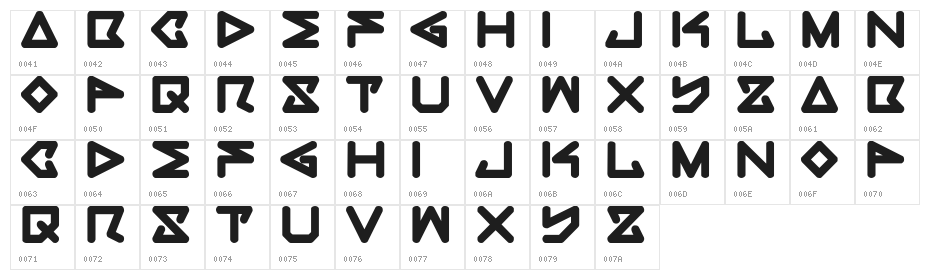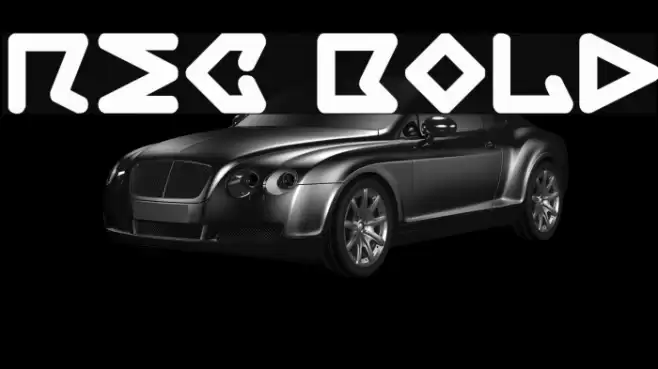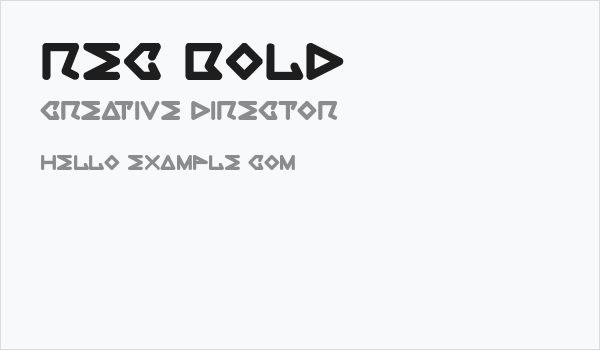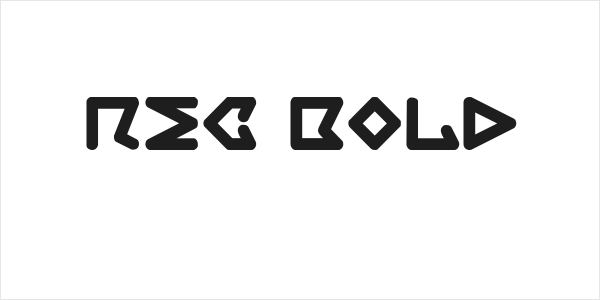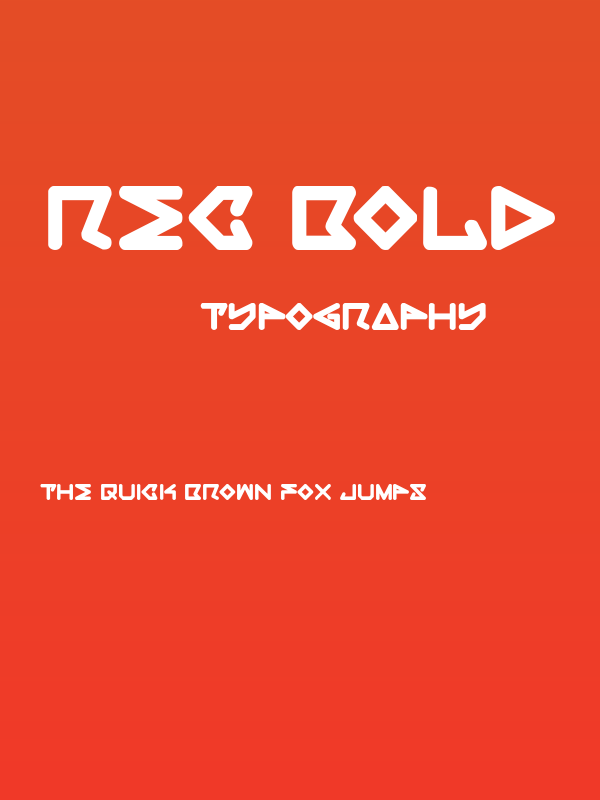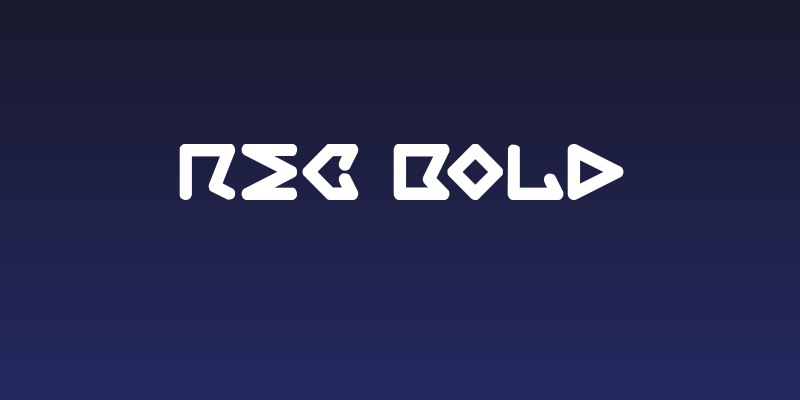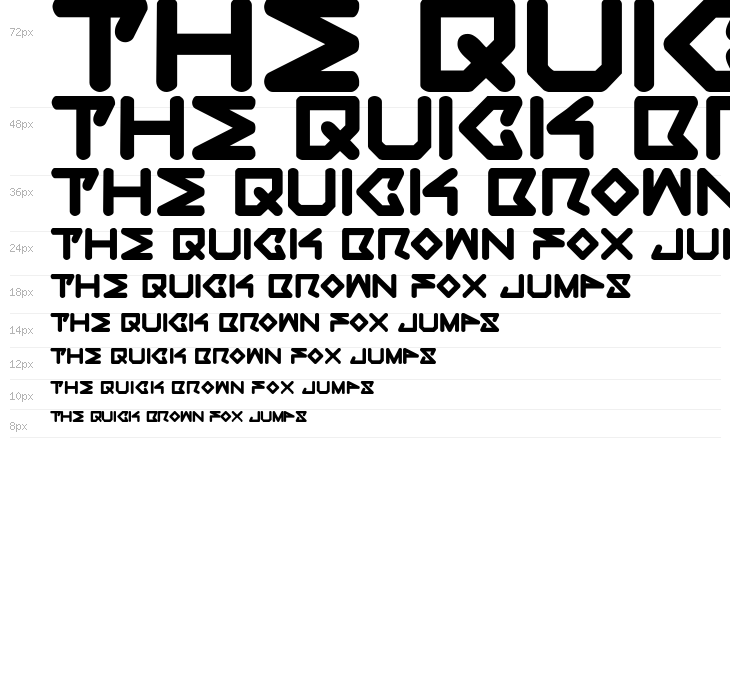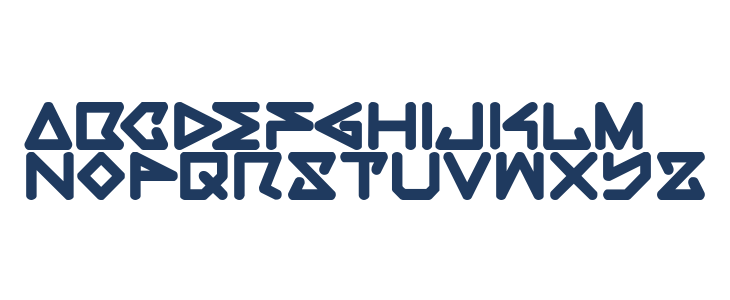
rec Bold Font
rec Bold Description
This font features a bold, geometric style with a futuristic and angular design. Each character is constructed with thick lines and sharp edges, creating a sense of modernity and strength. The uppercase letters are particularly striking, with unique shapes that resemble abstract symbols or digital glyphs. The overall appearance is both eye-catching and distinctive, making it suitable for projects that require a strong visual impact. The font's design is consistent across all characters, maintaining a cohesive look that enhances its bold aesthetic.
| Proposed Projects | Ideal for sci-fi themed projects, video game titles, tech branding, and futuristic posters. |